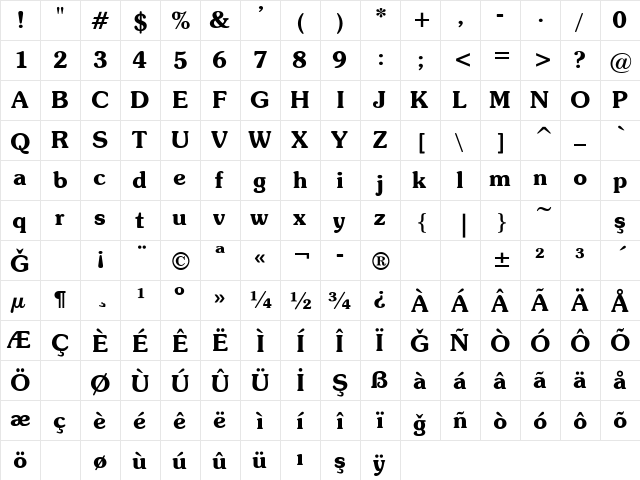
ITC_ Souvenir Bold
Design Context for ITC_ Souvenir Typeface
ITC_ Souvenir takes a measured approach to typography — its balanced proportions and neutral character make it a reliable workhorse for both digital and print work. The heavy weight commands attention and anchors typographic hierarchies.